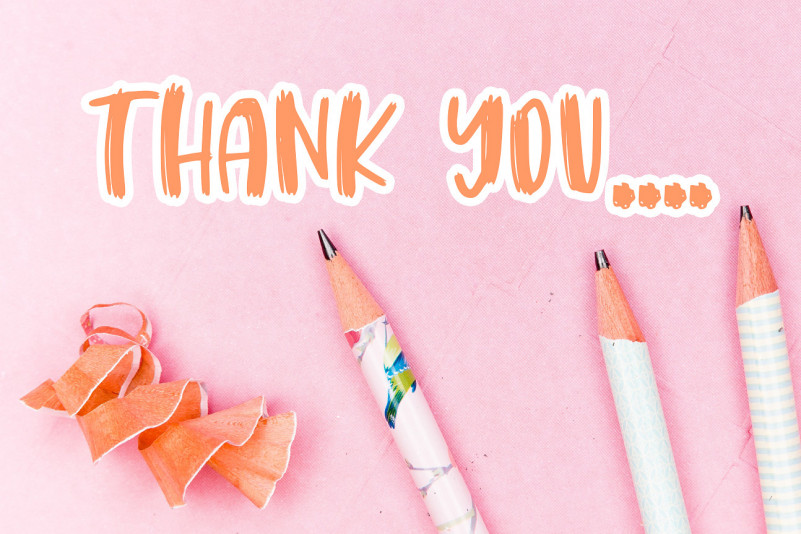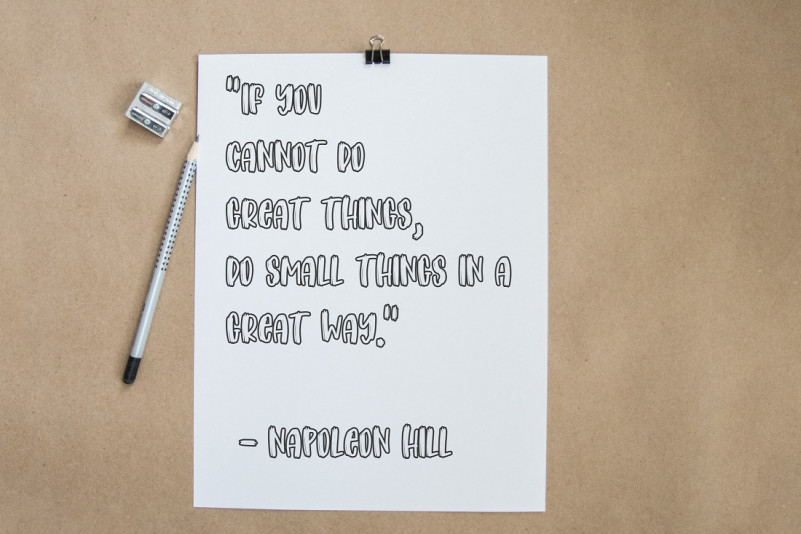
Almond Milk Brush Font
Almond Milk Brush Font is a cute and friendly brushed display font. No matter the topic, this font will be an incredibly asset to your fonts’ library, as it has the potential to elevate any creation.